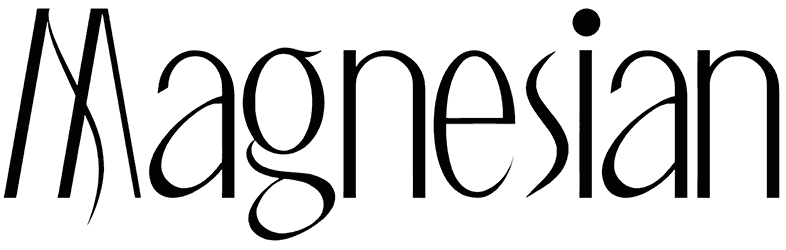
Magnesian Font
With this eye-catching magazine font, you can create a stunning and chic design to impress a lot of people. This fashion font consists of delicate and unique letters, but it doesn’t cover numbers and punctuation marks. Let’s use Magnesian font for your new layouts, such as a movie title or so forth, and show off your creative aspects.